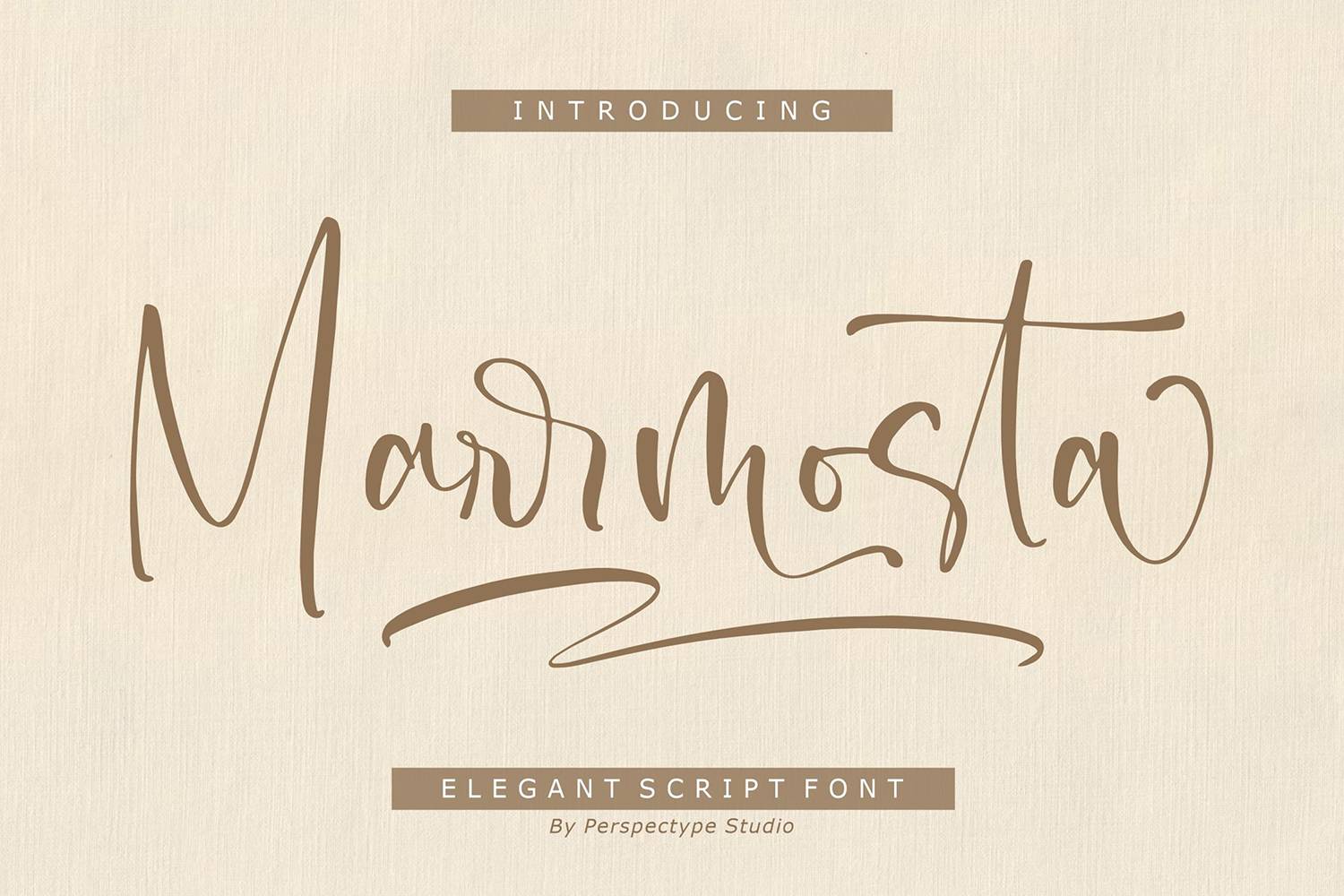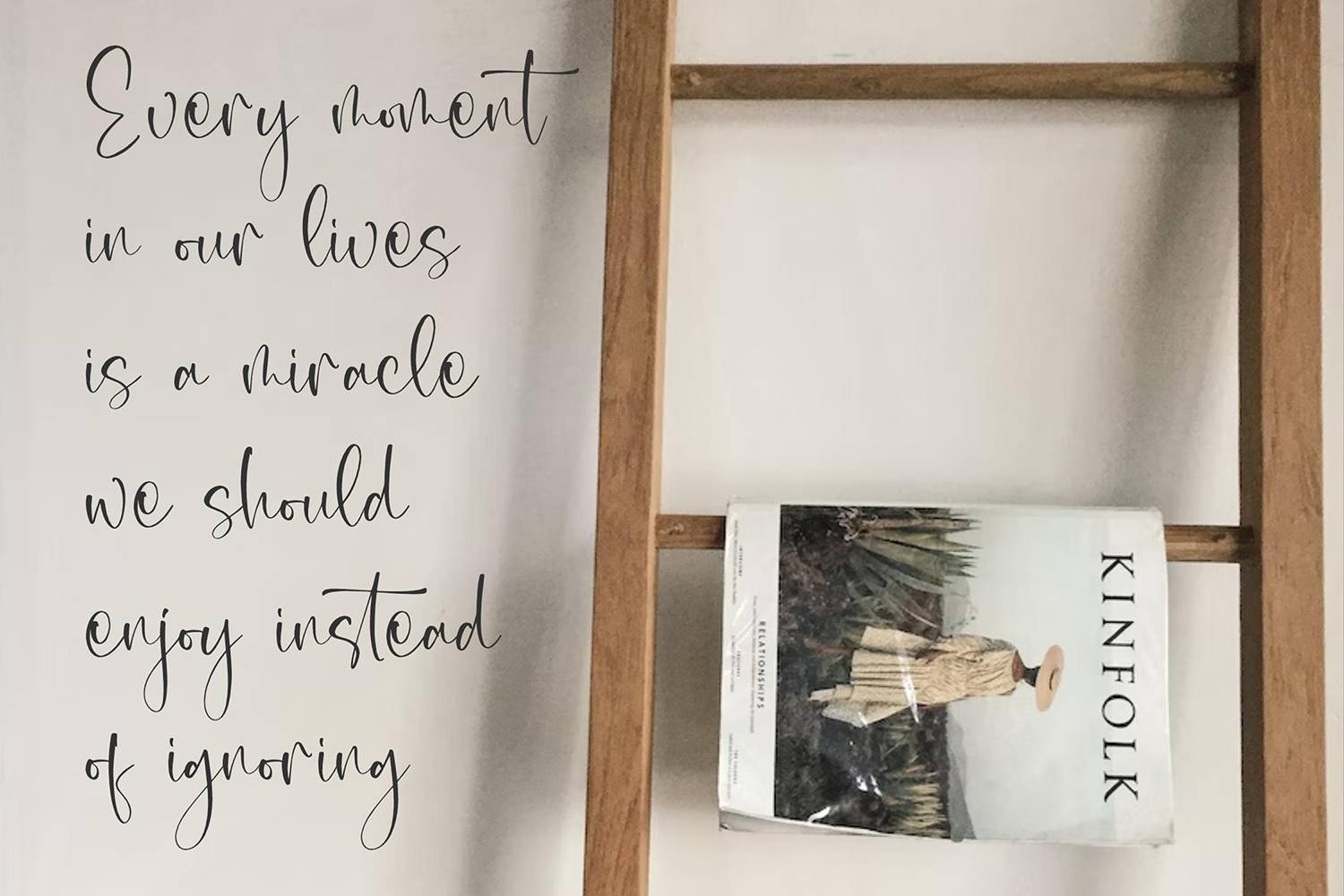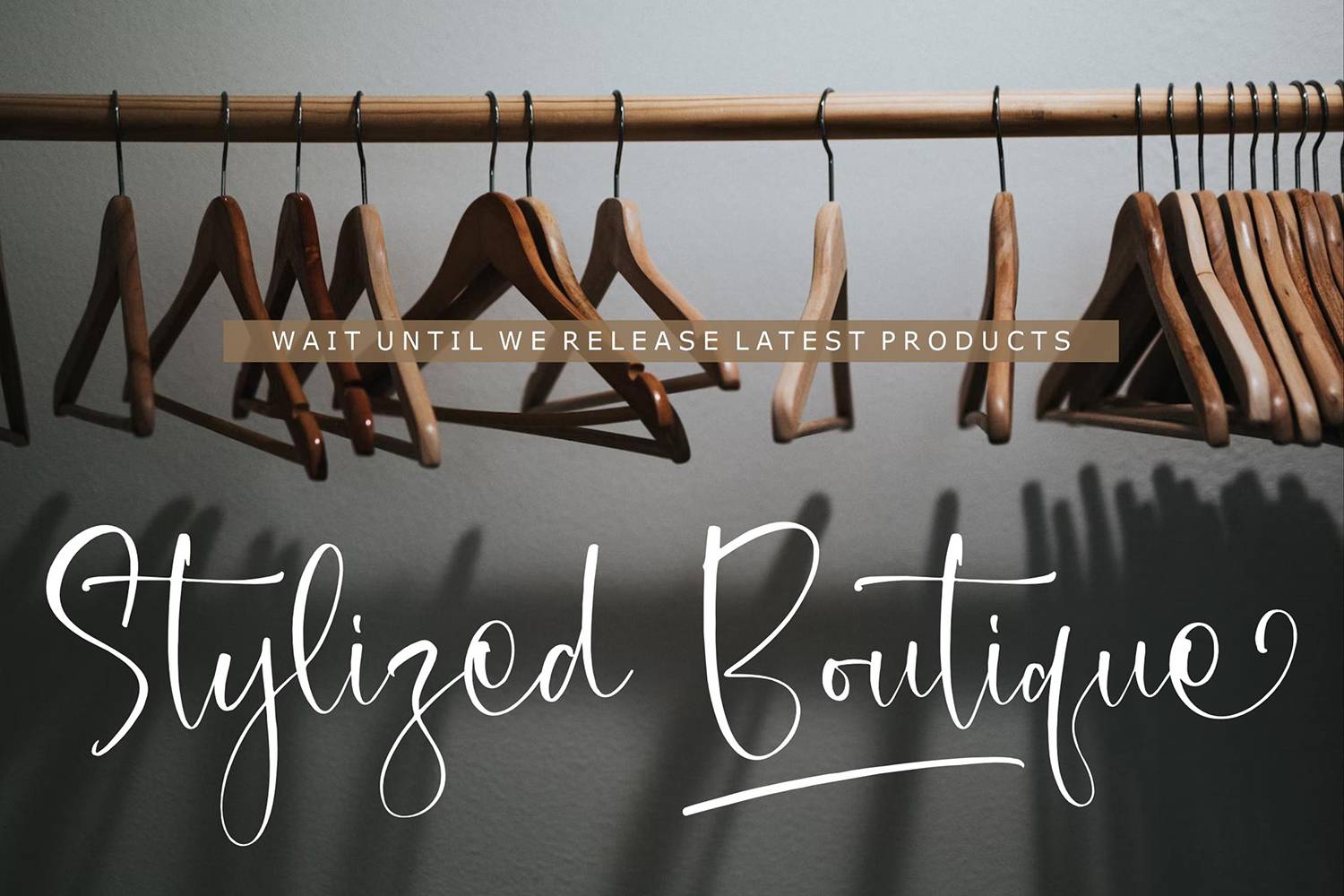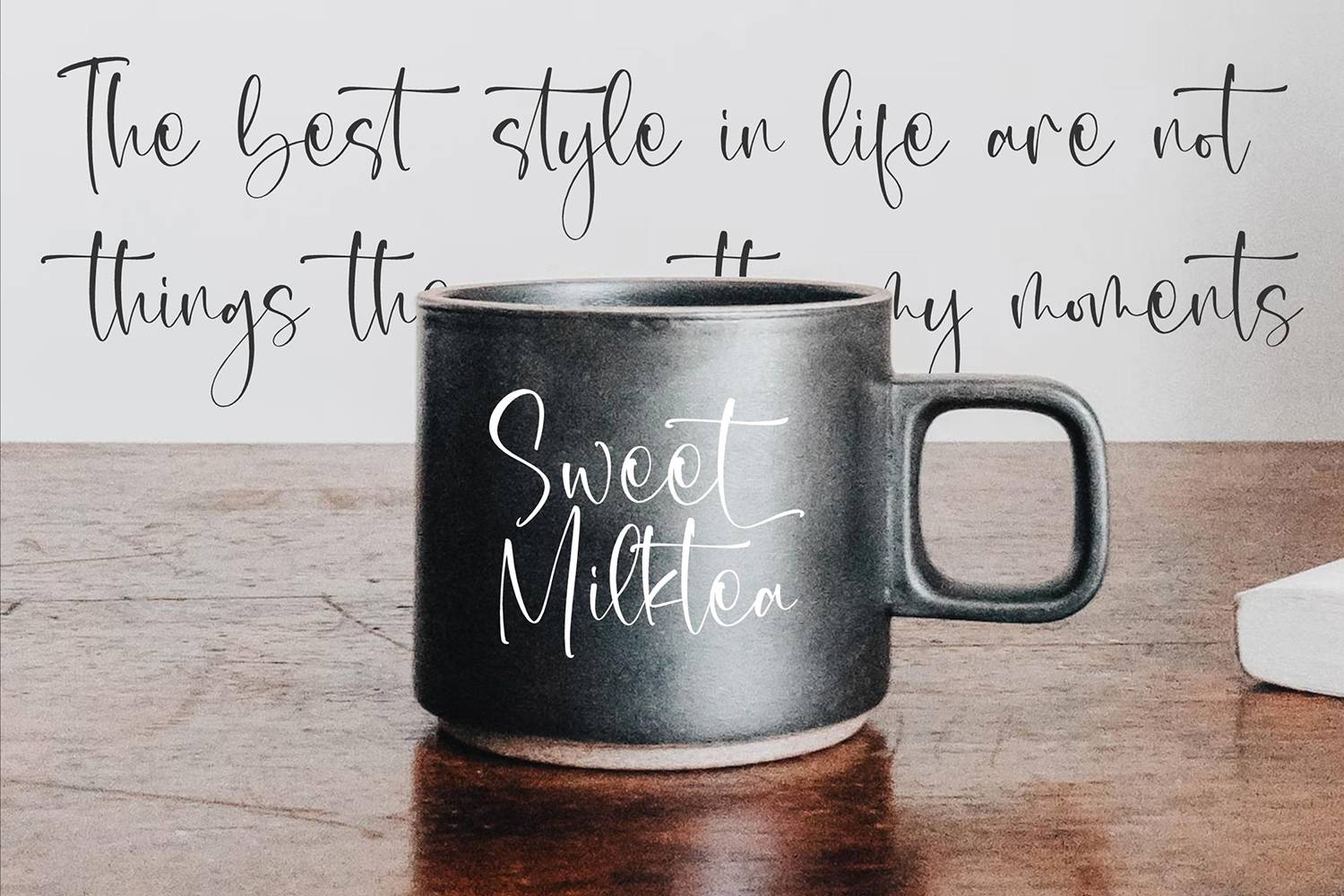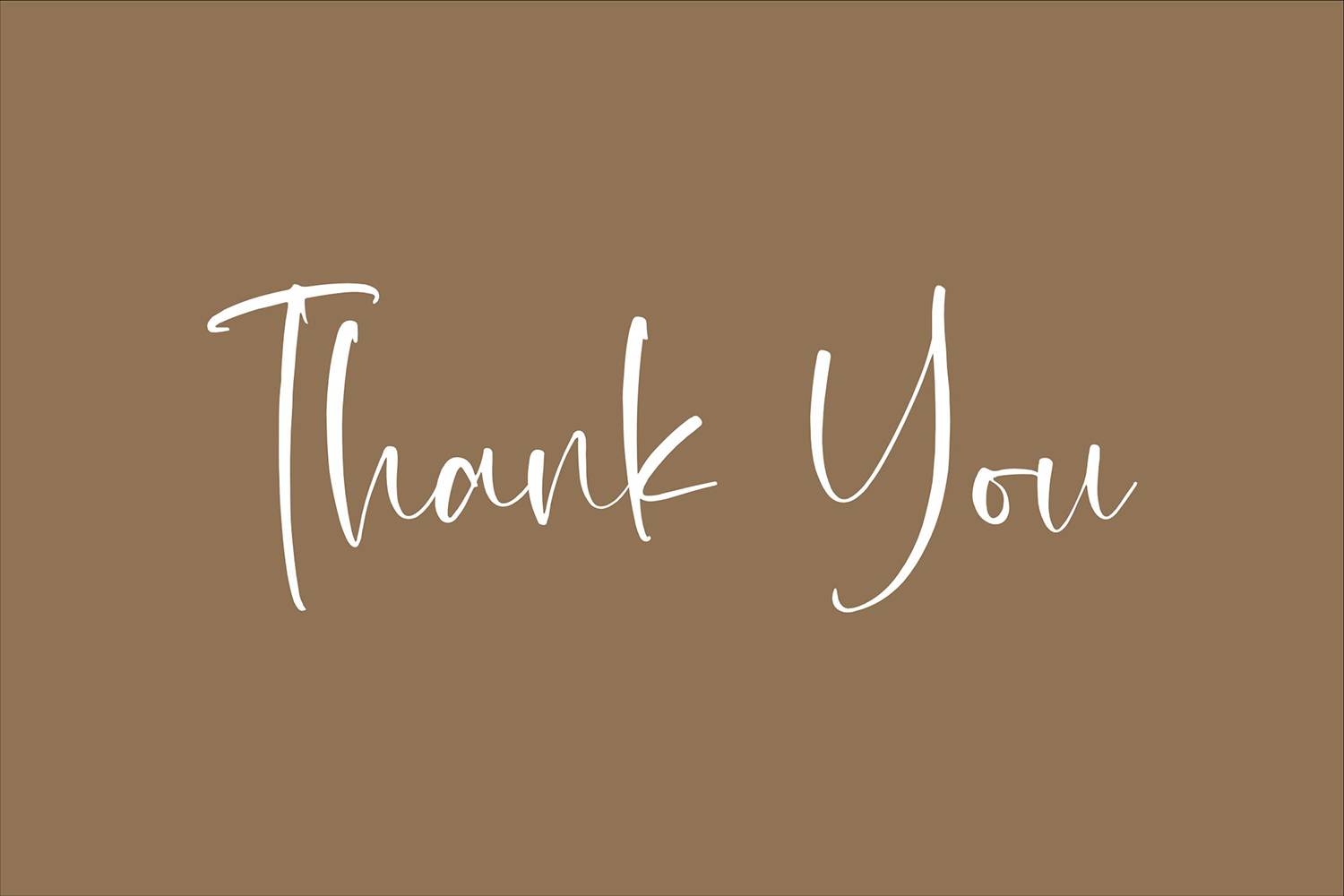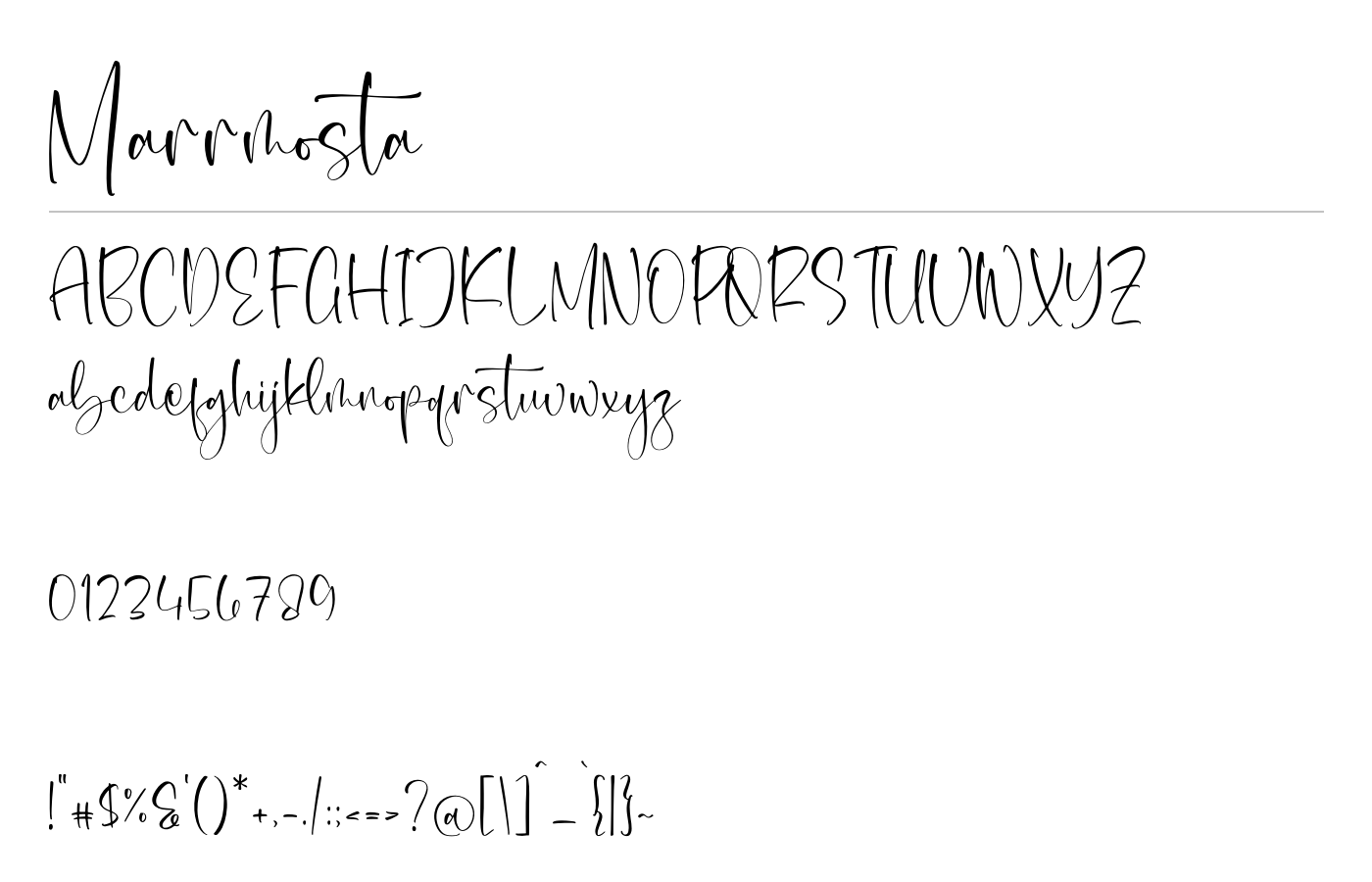
Marrmosta is a delicate, handwritten script font characterized by its slender strokes and playful, slightly irregular letterforms that give it a charming, personal touch. Its light weight and airy spacing create an elegant yet casual feel, making it perfect for invitations, branding, and creative projects that seek a warm and approachable aesthetic. This font shines in designs where a modern, artistic handwritten style is desired, adding a touch of individuality and friendliness.
Marrmosta Font
About Marrmosta Font
| Font family | Marrmosta Font |